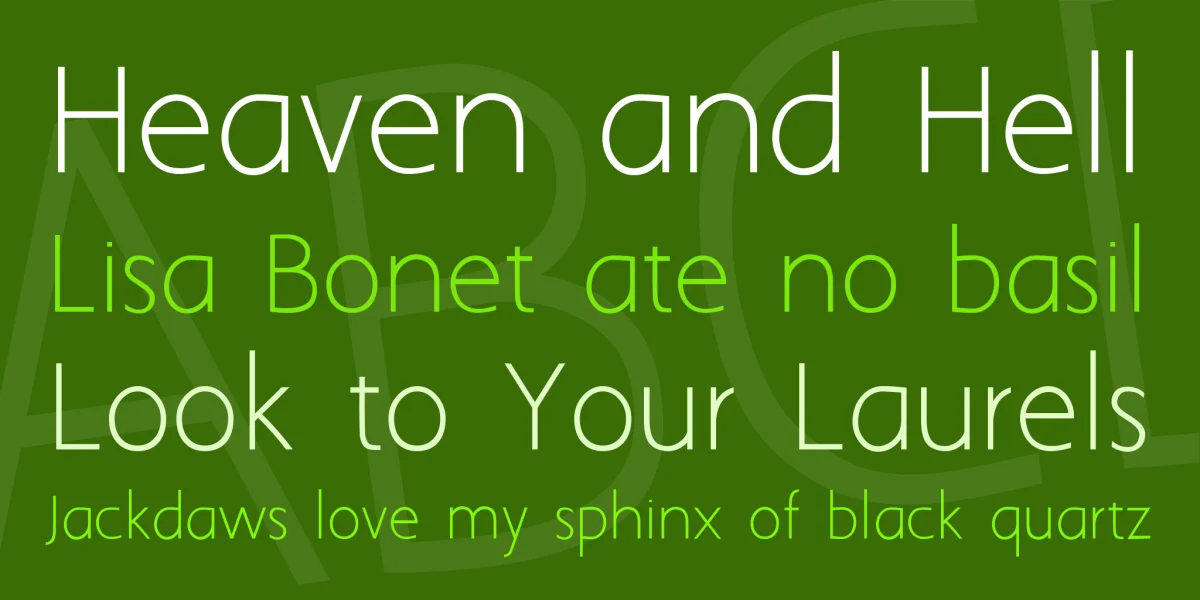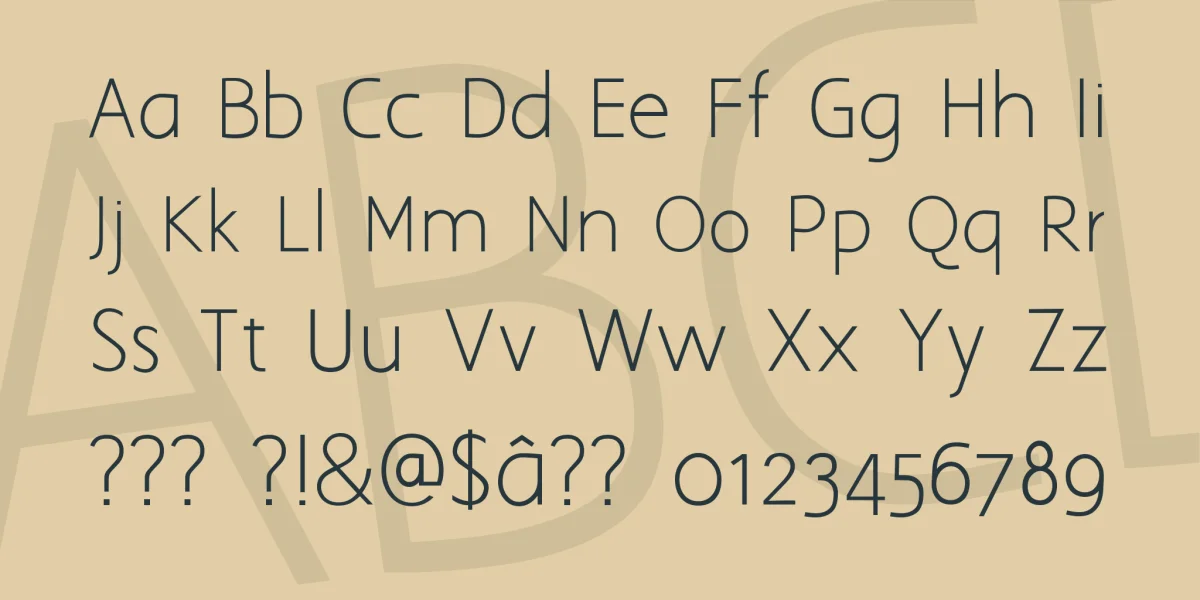
A slightly anorexic font I made a while ago. I needed a really thin font for package designs (for Tooter Claxton's), something like the thin Avant Garde. But I thought the shapes used in Avant Garde were too geometrical, too old fashioned, too anal retentive. So I made this one. I kinda like it.